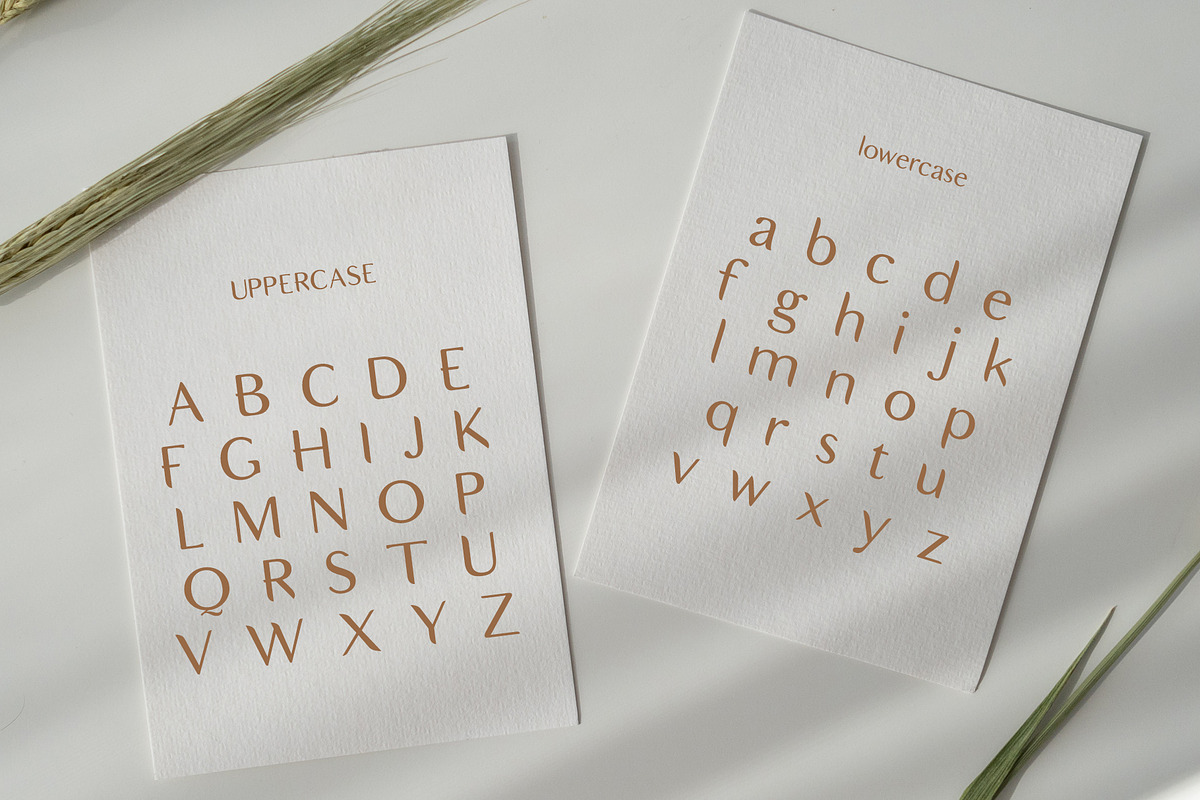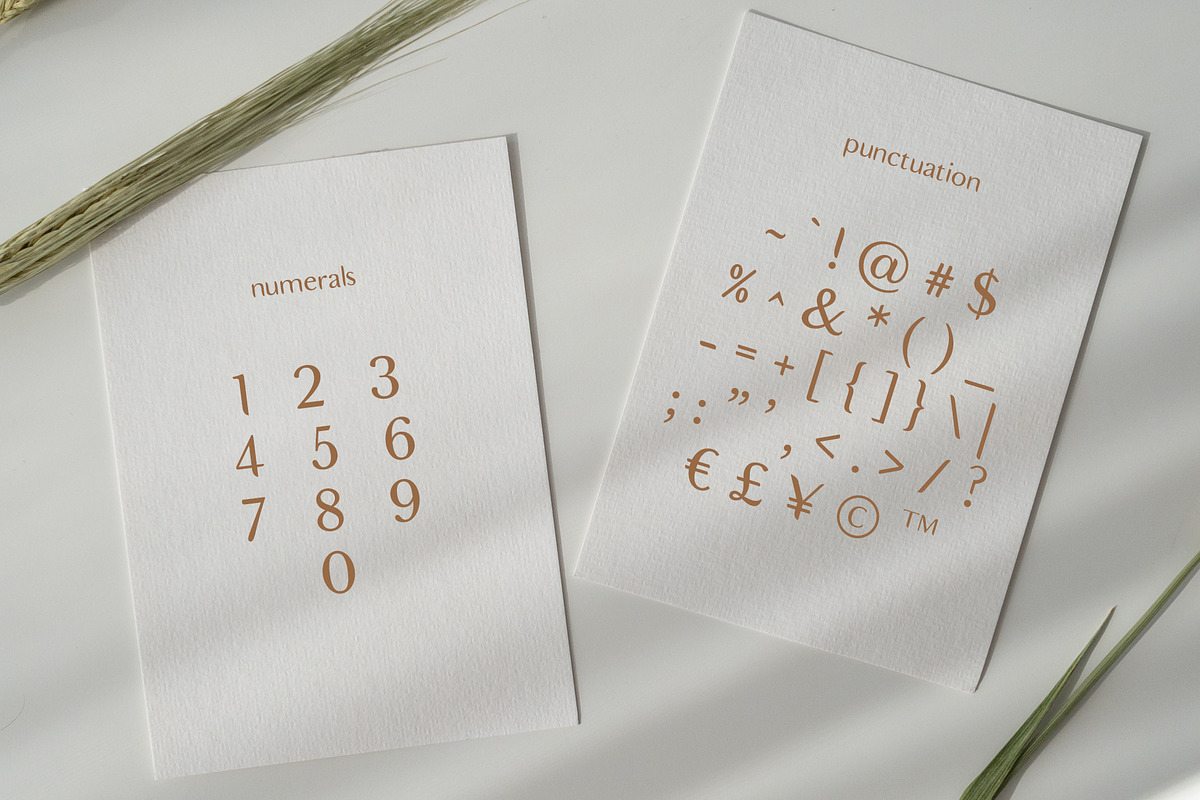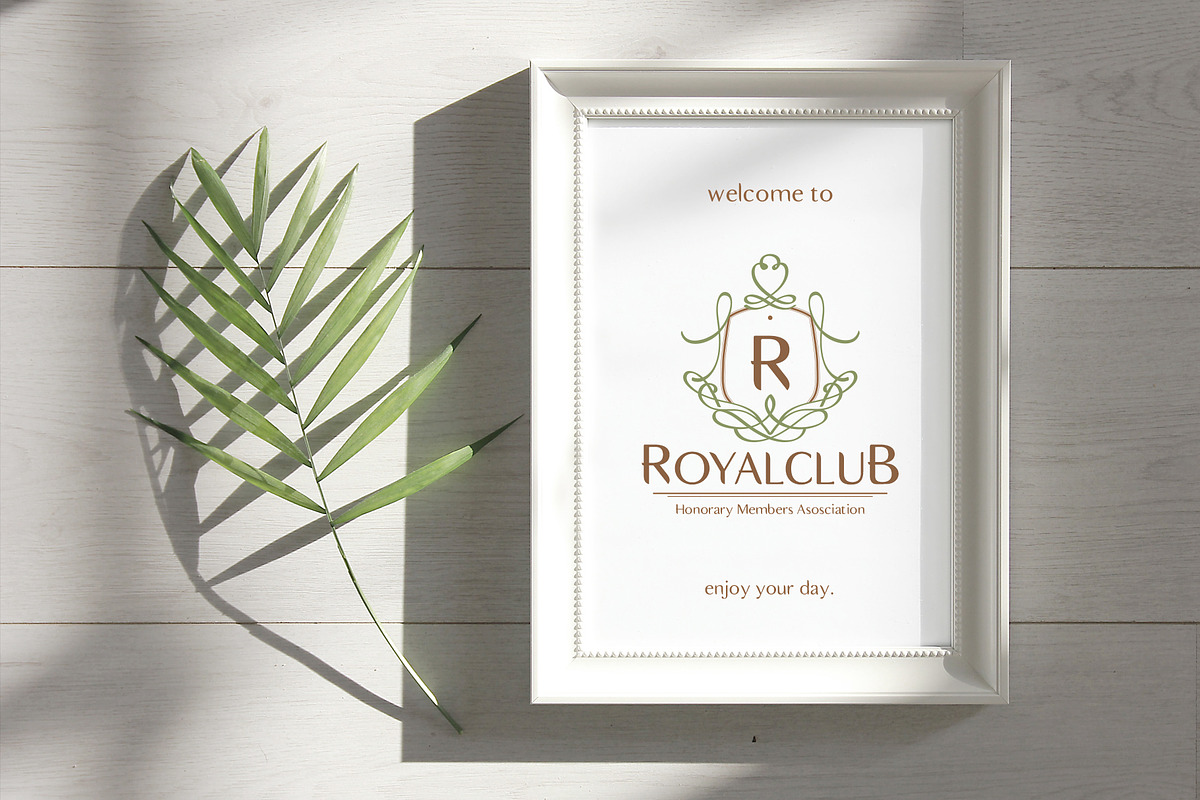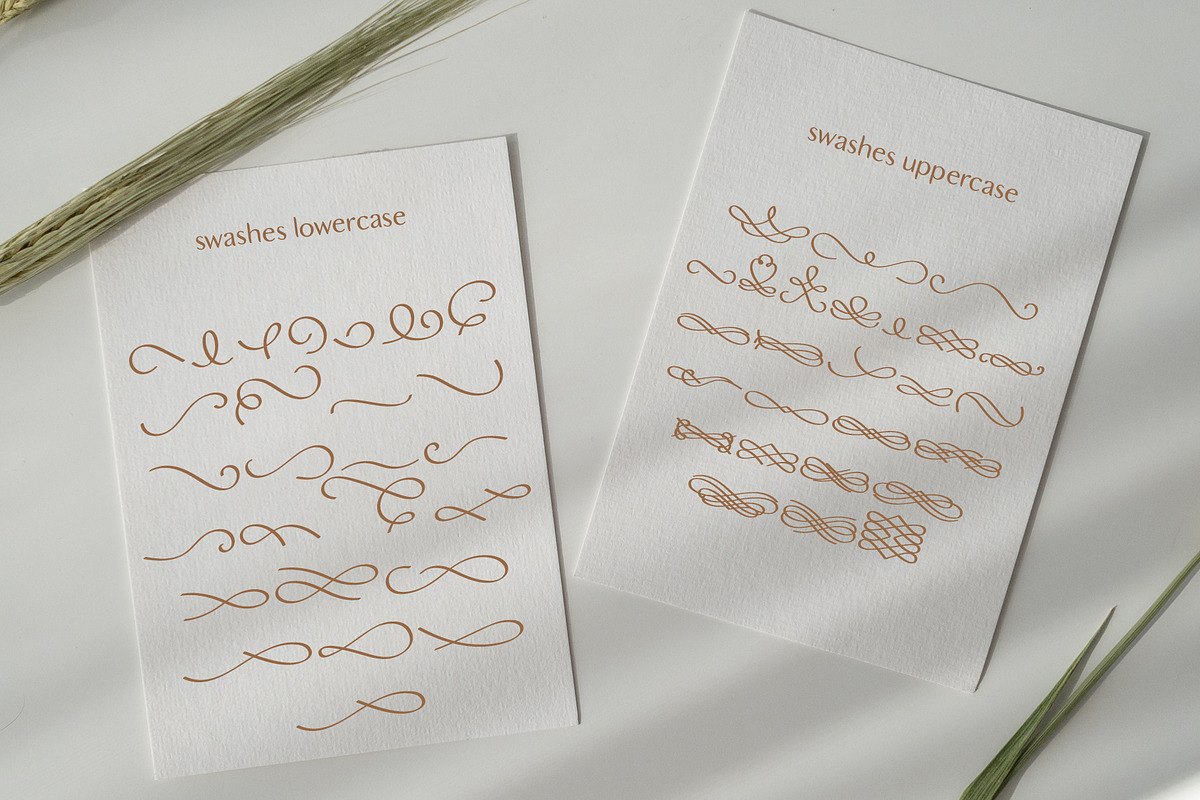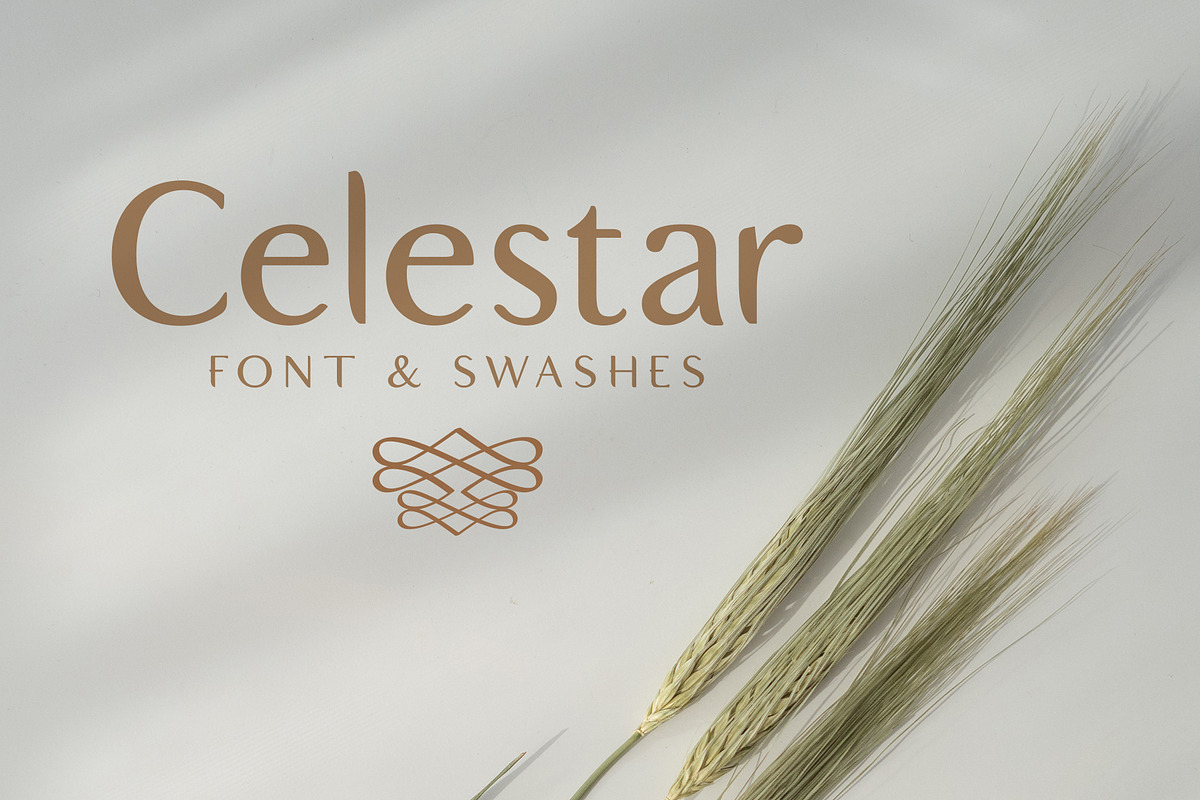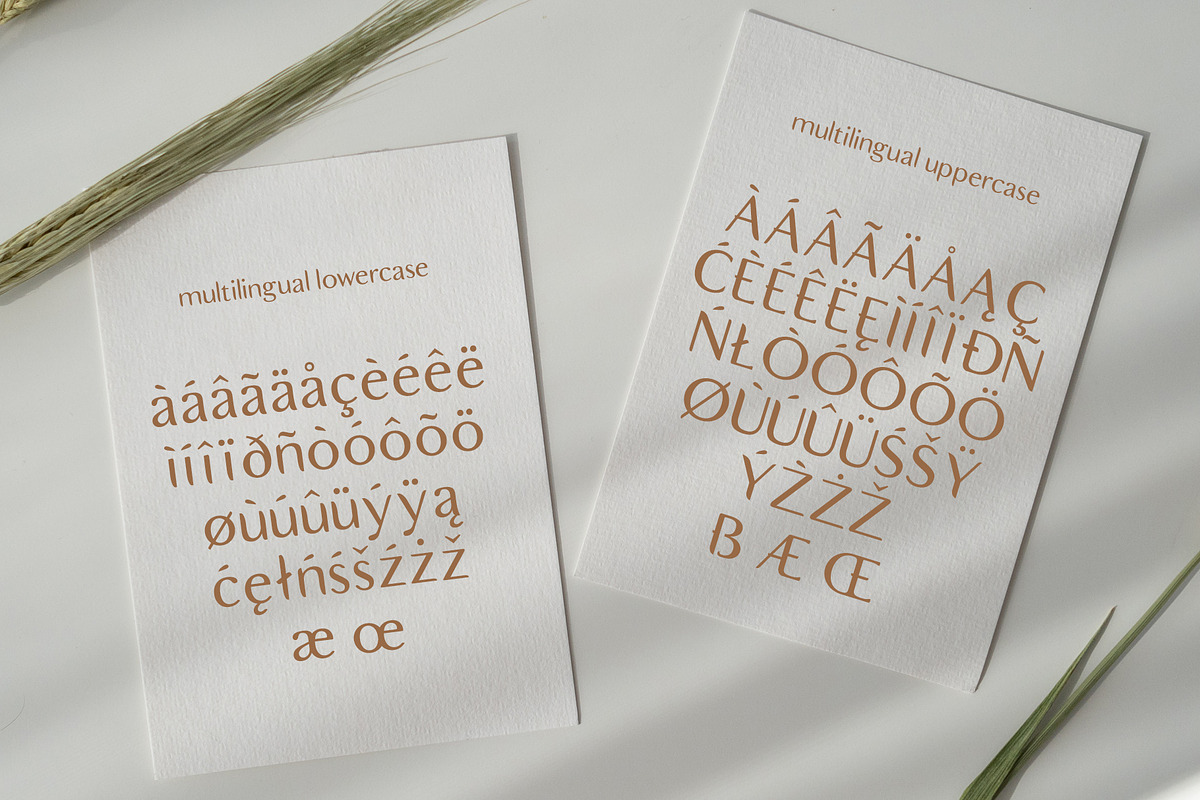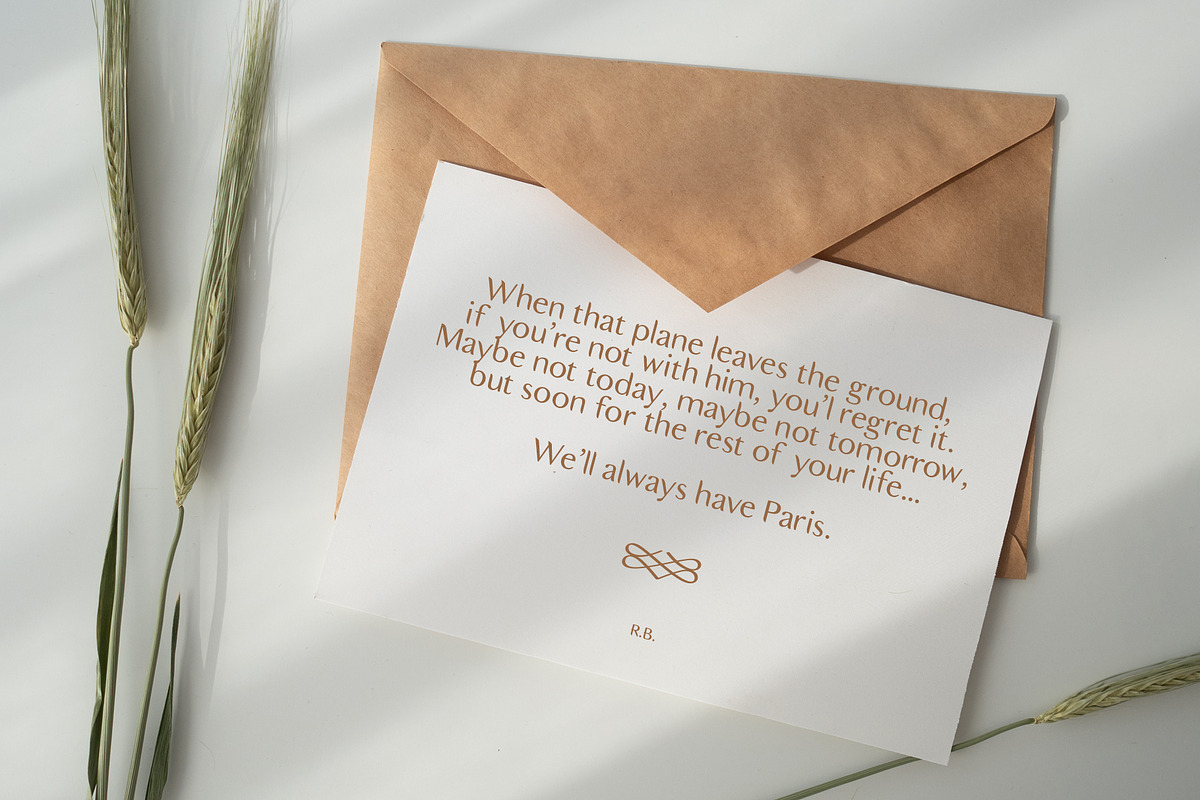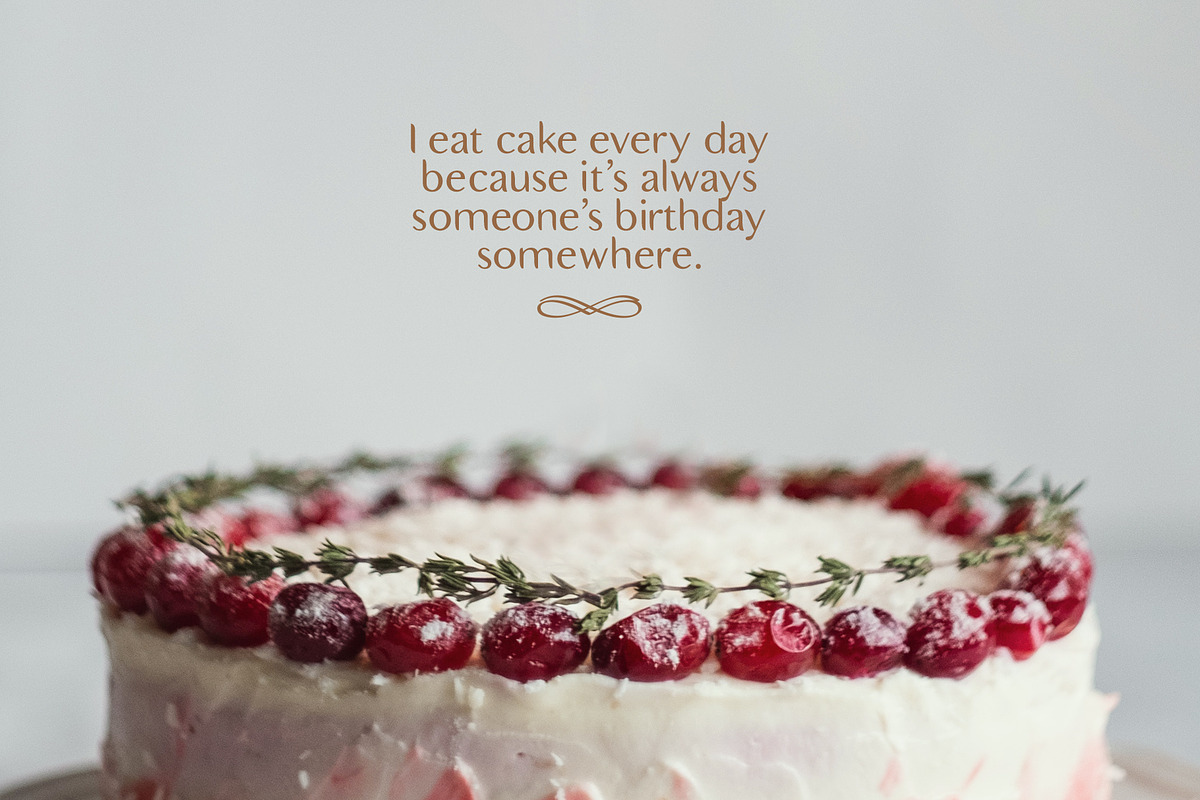
Celestar Font
Celestar is a sans serif elegant font featuring uppercase and lowercase letters, as well as numerals, punctuation and multilingual support. It is an elegant type that also includes 52 different swashes you can combine with the letters to design many graphics such as logos, posters, ads and much more. This is a versatile font that can be used for both modern and retro designs.
- Regular & Swashes
- Celestar Regular
- Celestar Swashes